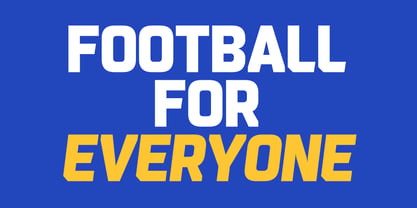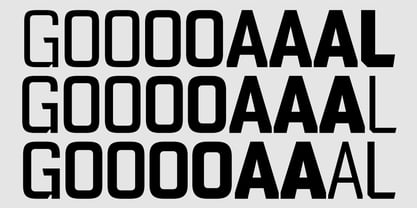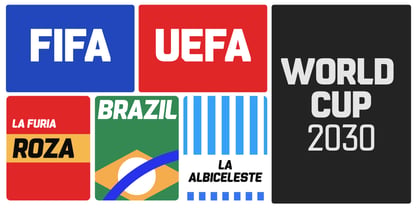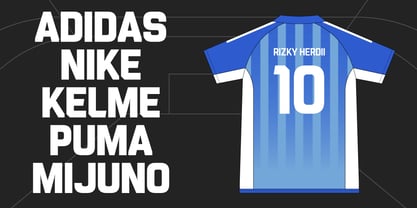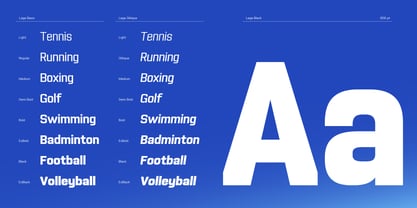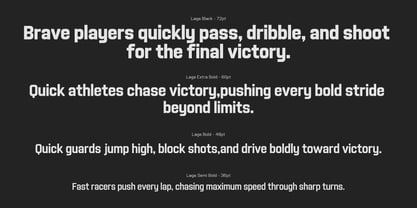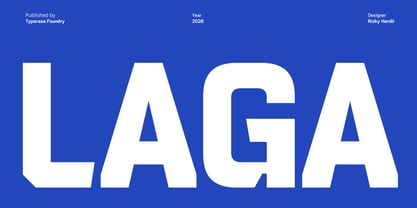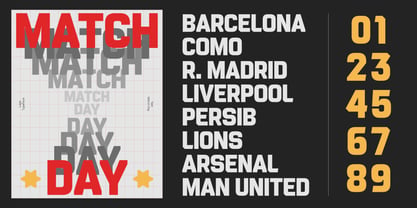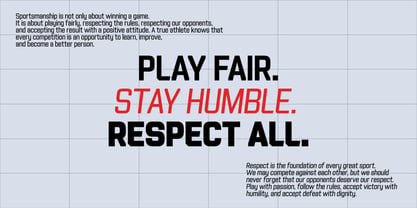
Laga
La famille de polices Laga a été conçue par Rizky Herdii et publiée par Typerasa. Laga contient 16 styles et options de package familial. En savoir plus sur cette famille
LAGA is a bold and athletic display typeface inspired by the energy, intensity, and visual culture of football. Built with strong geometric forms, compact proportions, and distinctive angled details, LAGA is designed to make a powerful statement wherever it is used. Its heavy presence and dynamic character make LAGA a natural choice for football branding, sports campaigns, team identities, jerseys, matchday graphics, posters, headlines, merchandise, and streetwear designs. LAGA balances a strong, competitive attitude with a clean and contemporary structure, making it versatile enough for both sports-focused projects and bold graphic compositions. Whether you're designing for the stadium, the street, or the screen, LAGA brings confidence, energy, and impact to every word.